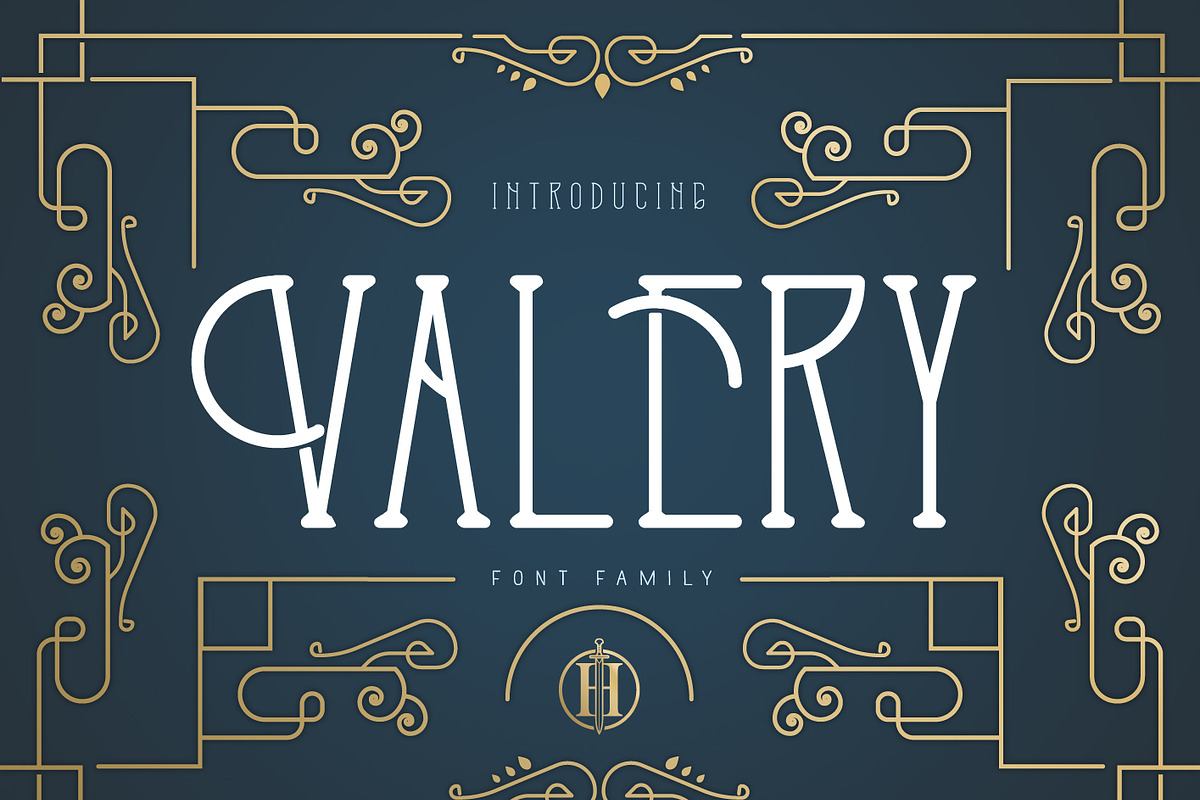
Please note, you must purchase this font for commercial use. However, you can easily download Valery Font Free Download for personal use and testing purposes. Valery Font is an elegant and versatile serif typeface designed to give a sophisticated and modern touch to your designs. Perfect for branding, invitations, editorial projects, and logos, this font features clean lines and graceful curves that enhance readability while maintaining style. Whether you're working on a luxury brand, a chic wedding invitation, or a contemporary logo, Valery Font Free Download will elevate your design with its refined, professional look. Download Valery Font Free Download today and explore its potential before opting for a commercial license.